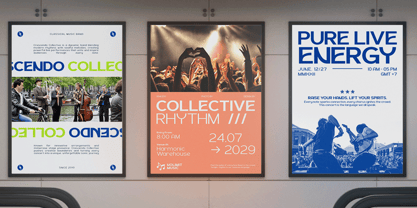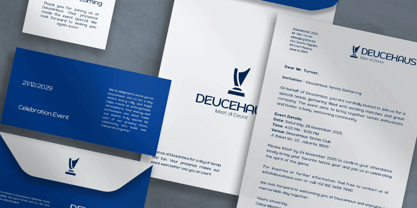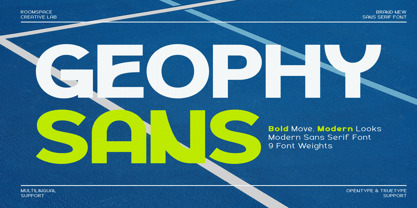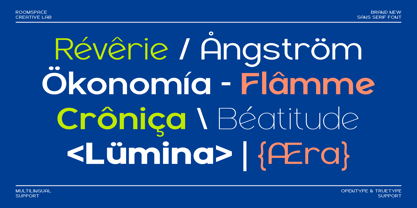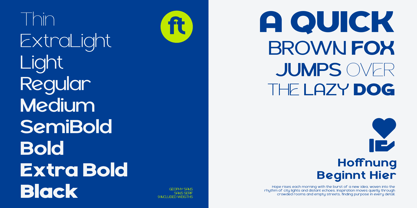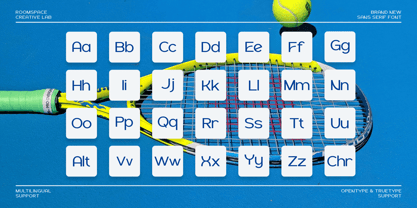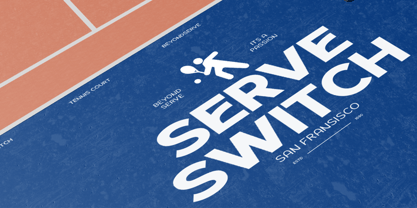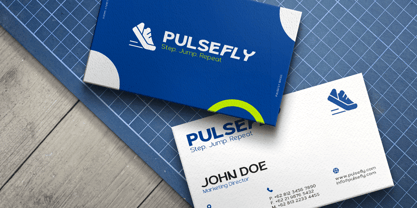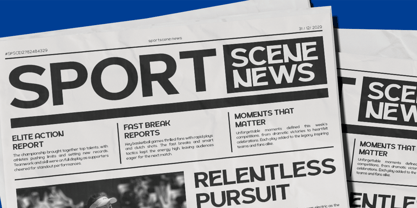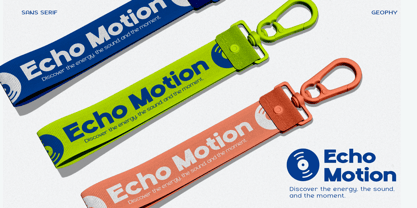
Geophy
von Jafar07
Die Schriftfamilie Geophy wurde von Bakhrudin Ja'far entworfen und von Jafar07 veröffentlicht. Geophy enthält 9 Stile und Familienpaketoptionen. Mehr über diese Familie
Sporty, bold, and modern a sans-serif built for strong visual impact. Inspired by athletic courts and dynamic design languages, Geophy Sans communicates confidence, precision, and fast-paced energy. Best for branding, sports industry, apparel, UI design, urban campaigns. Geophy Sans is a bold modern sans-serif font inspired by the geometry and movement of urban sports culture. Designed for high-impact visuals, it delivers strong readability with clean precision perfect for branding, posters, apparel, headlines, and dynamic layouts. Featuring 9 styles from Regular to Extra Bold, Geophy Sans adapts beautifully to professional typography needs across digital and print.
Designer: Bakhrudin Ja'far
Aktuelle Foundry: Jafar07
A little from my personal design & background: My name is Bakhrudin Ja'far, I live in Malang, Indonesia. I am currently completing my degree in visual communication design and I have worked as a lettering artist and logo designer for many years. I finally started my studio called roocspace creative lab (jafar07) Studio a few months ago and with my team made my letters into typography.